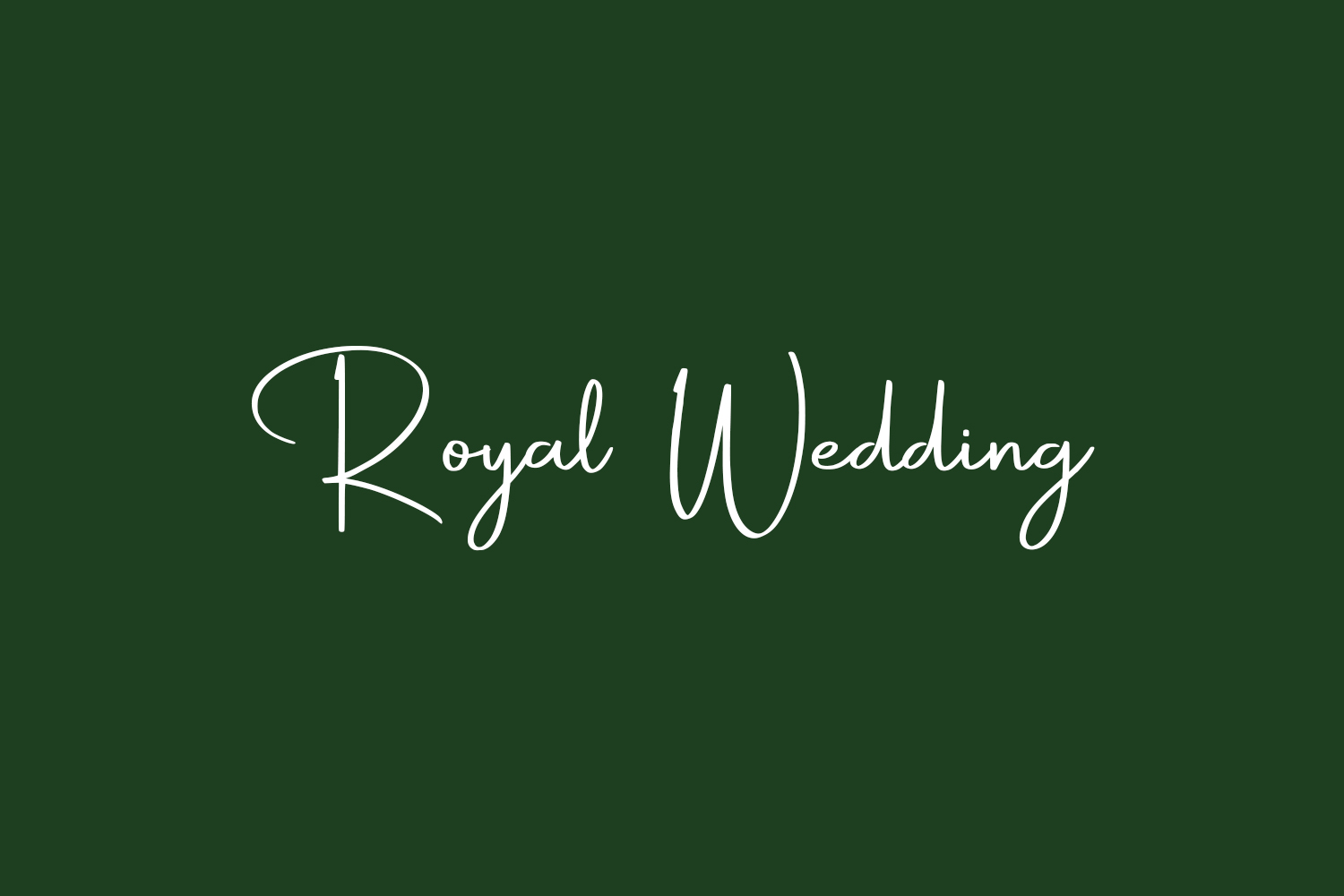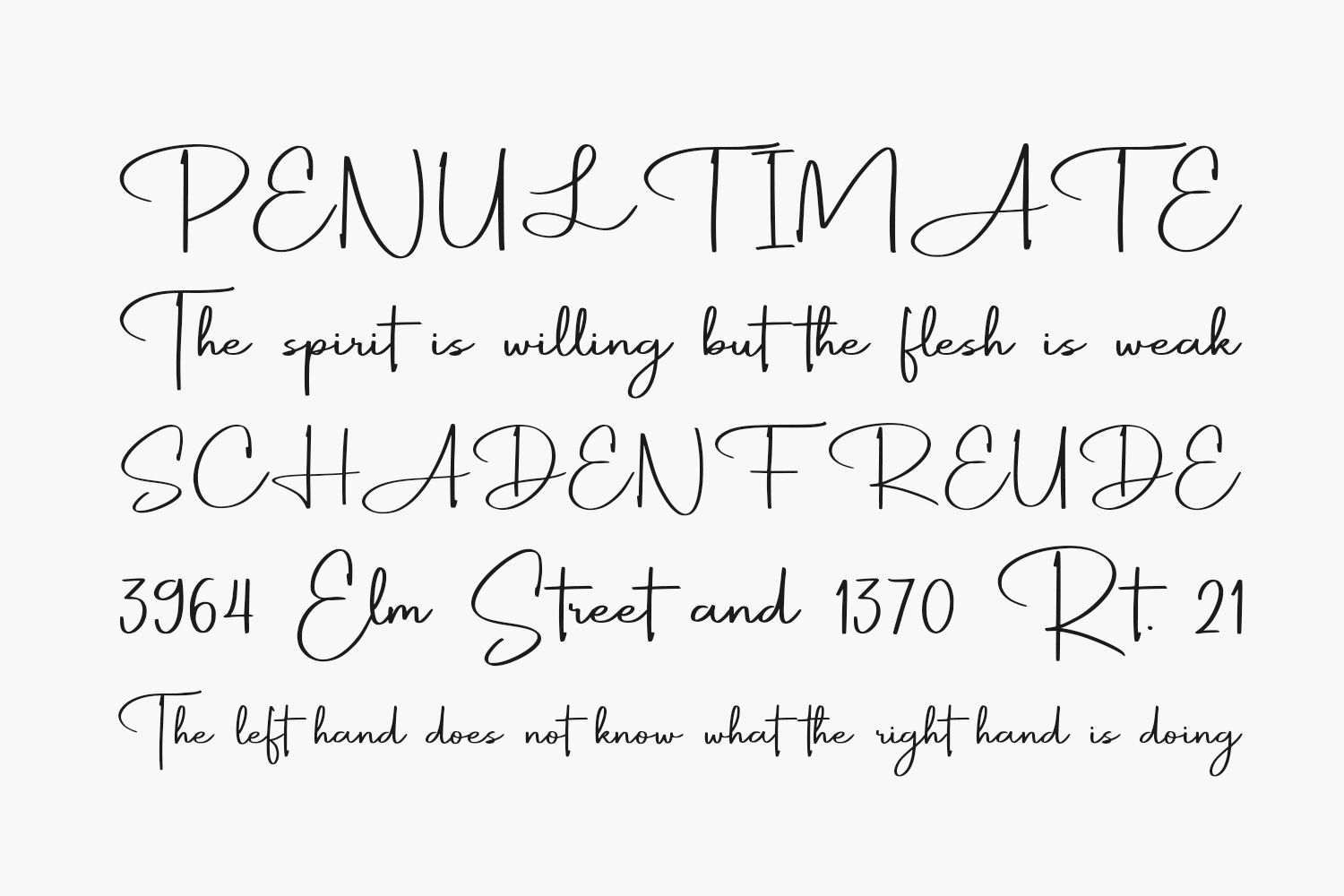
Discover the regal elegance of Royal Wedding Free Font, an ideal choice for a multitude of branding projects including logos, t-shirt printing, and creative merchandise. With its versatile appeal, this font seamlessly enhances your designs, ensuring remarkable outcomes. Incorporate Royal Wedding into your projects with confidence, and witness the captivating results it brings. Royal Wedding Free Font is free for personal use only. Please purchase the full version for commercial use.
Designed by Nirmana Visual